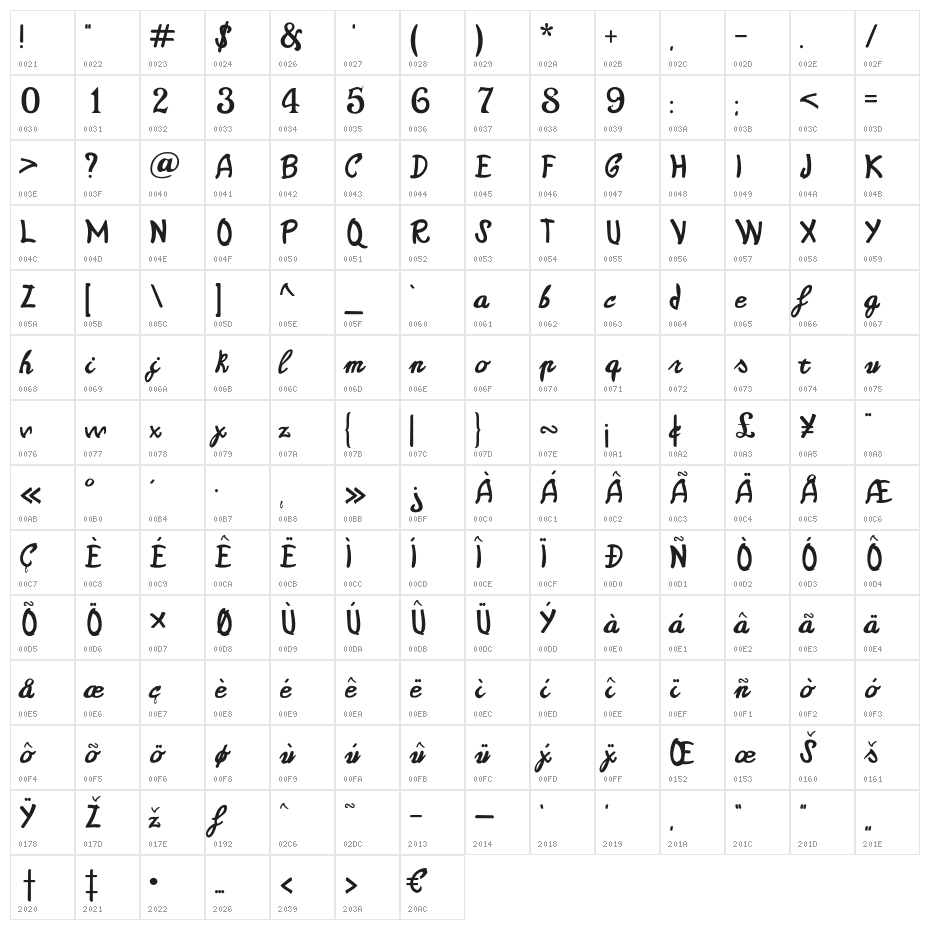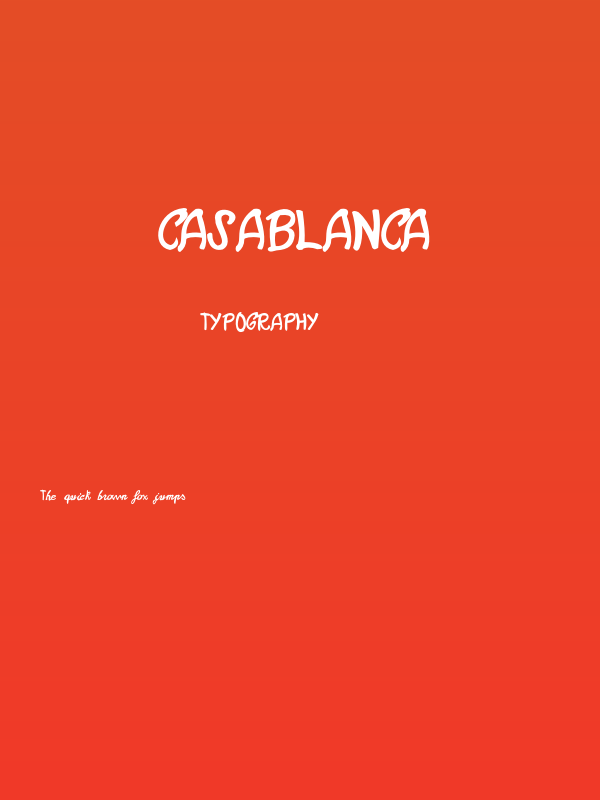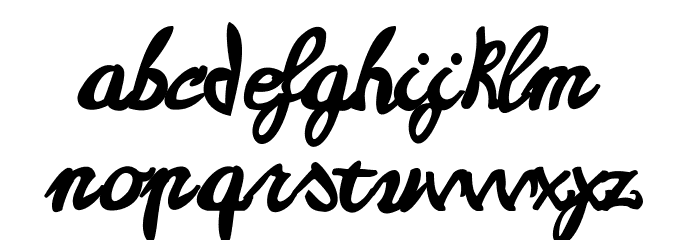
Casablanca Font
Casablanca Description
This font features a bold, expressive style with a handwritten flair, combining both uppercase and lowercase letters in a fluid, dynamic manner. The uppercase letters are bold and slightly condensed, while the lowercase letters exhibit a more cursive, flowing style. Numbers are clear and bold, maintaining the overall expressive nature of the font. Special characters are distinct and maintain the playful, energetic style. The font's strokes are consistent, with medium contrast, giving it a lively and engaging appearance suitable for creative and artistic projects.
| Width | Condensed |
| Use Case | Logos, Headlines, Posters |
| Proposed Projects | Ideal for creative projects such as posters, invitations, branding, and artistic designs where a lively and personal touch is desired. |